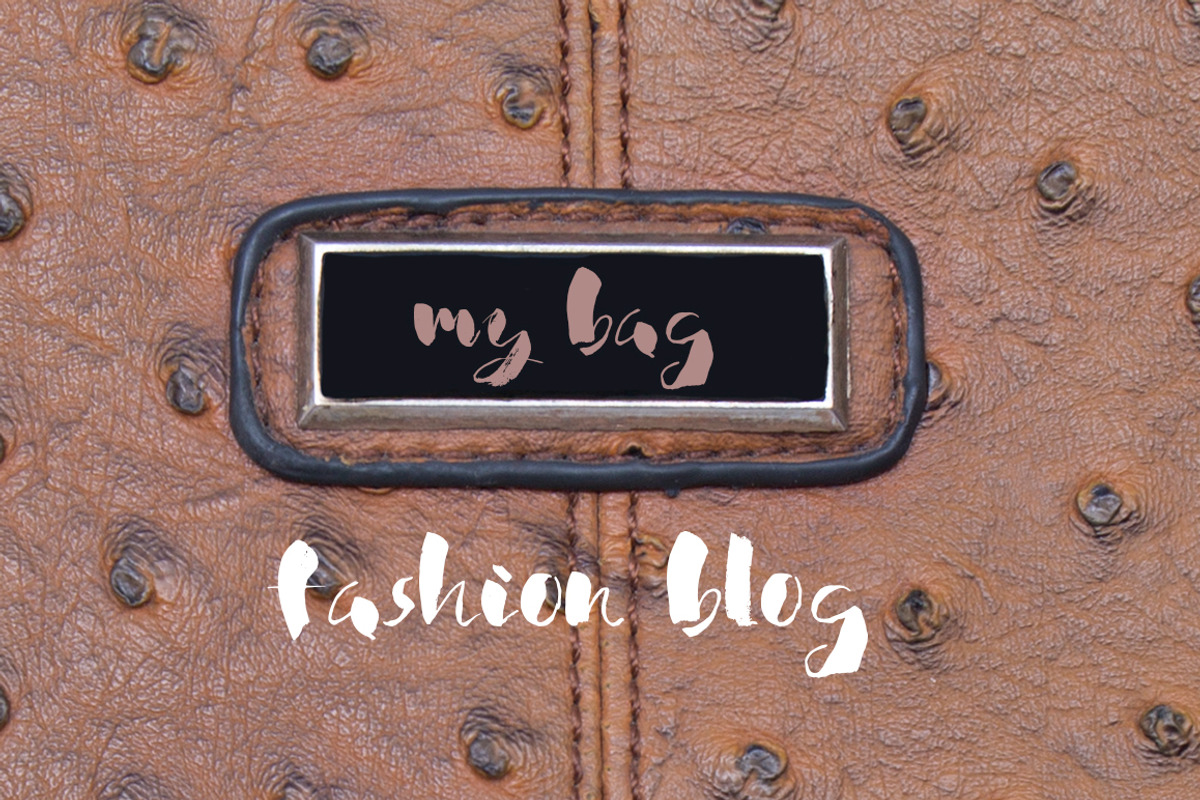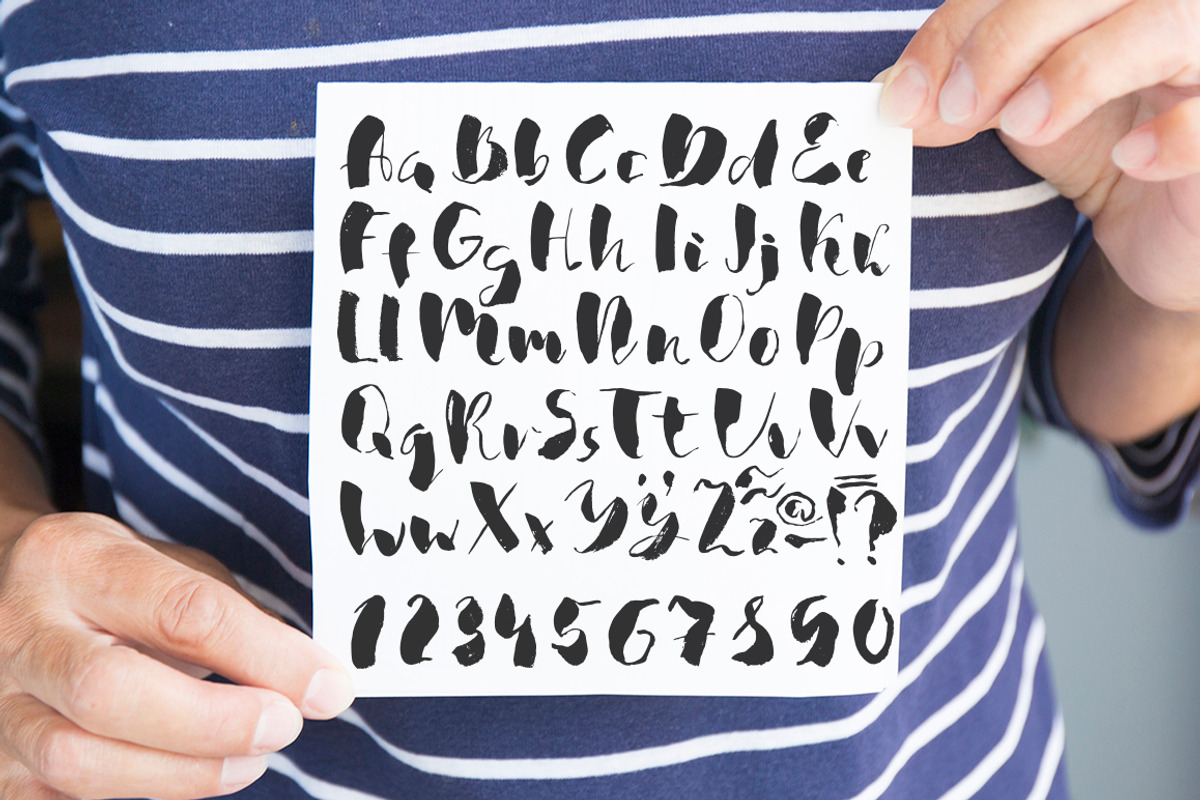
The sponge font
The sponge font by Ana Babii is a font selected for branding, posters, packaging, typography.
Why The sponge font is worth a look
The sponge font by Ana Babii fits naturally into Branding, posters, packaging, typography.